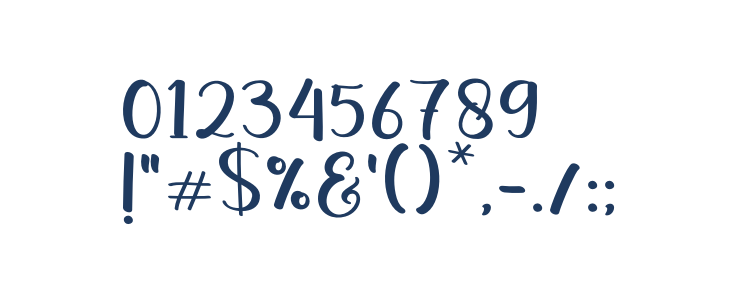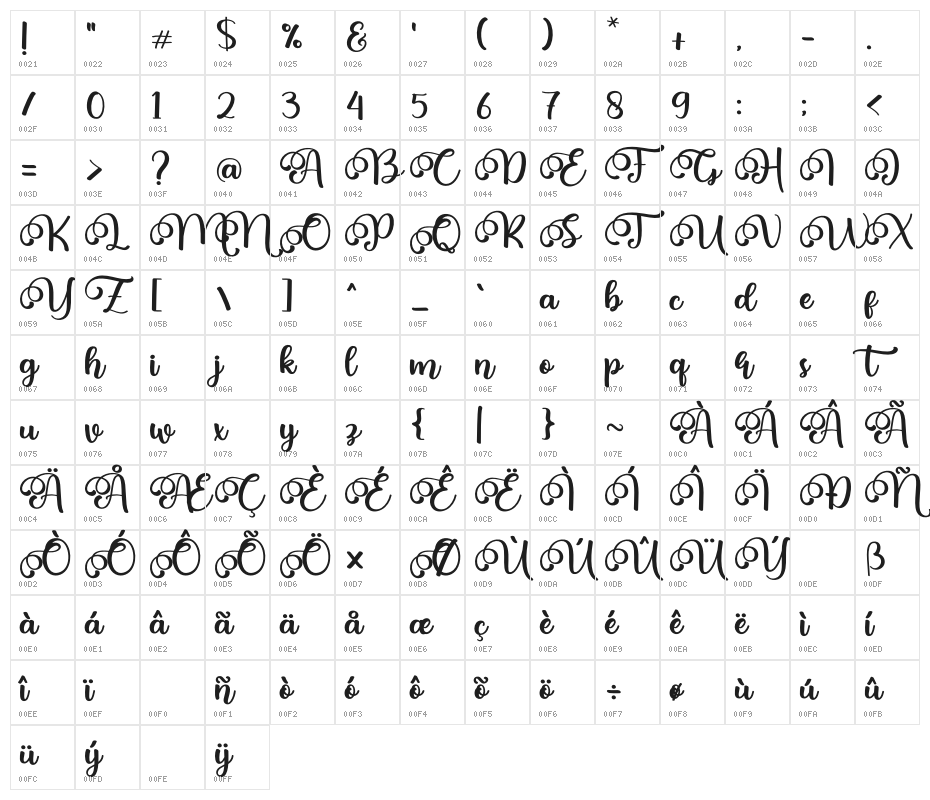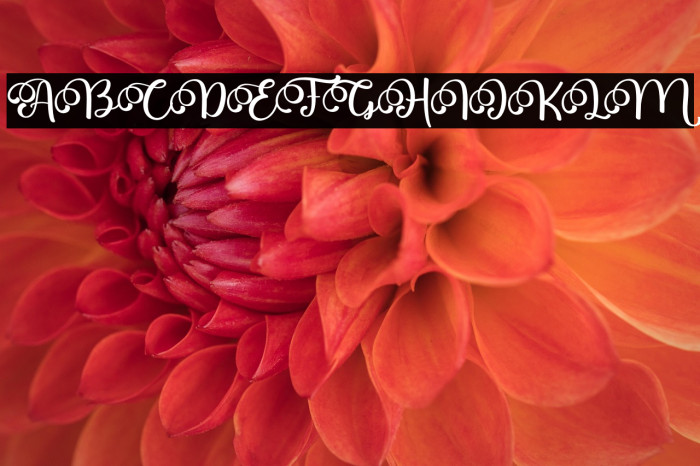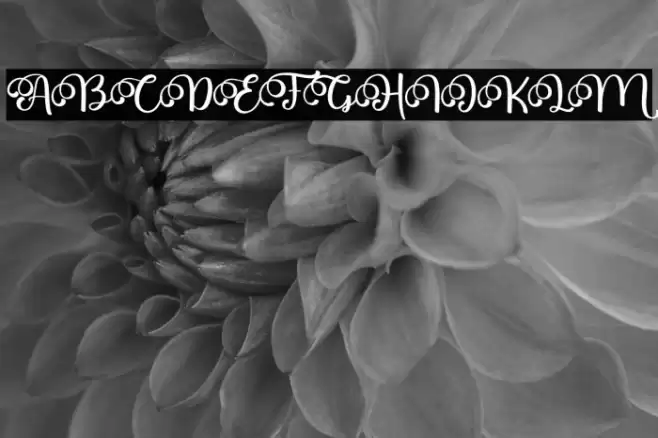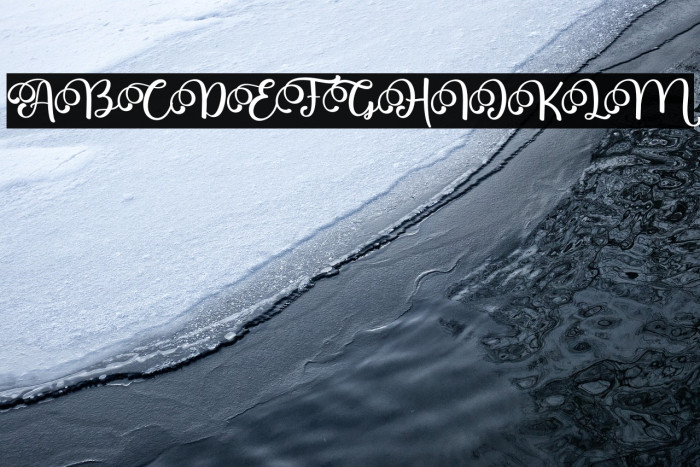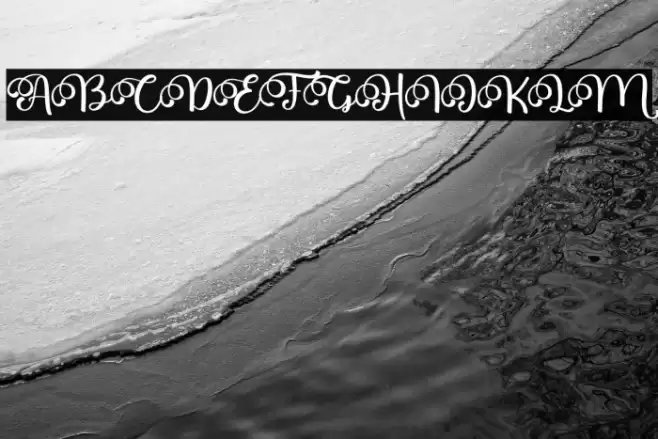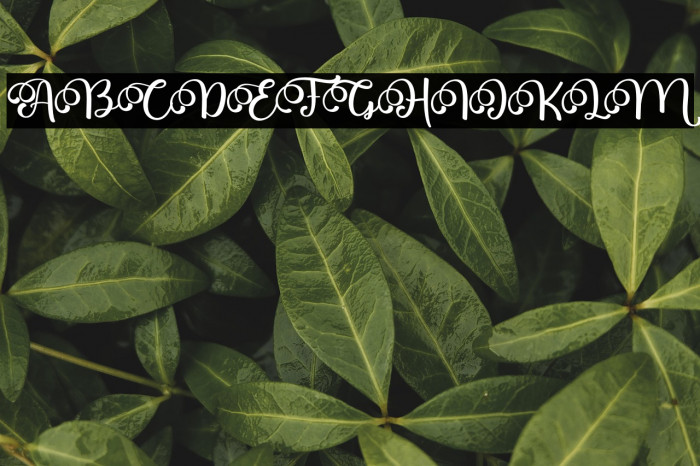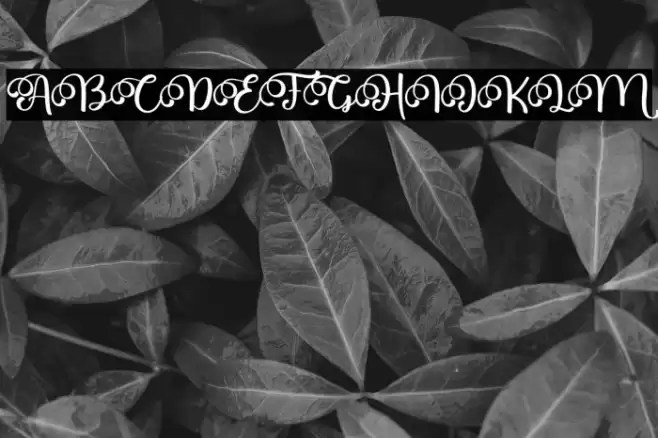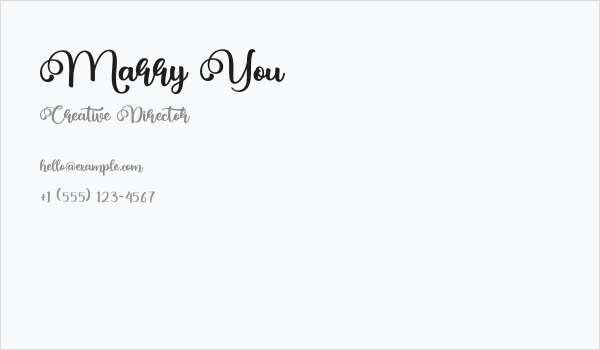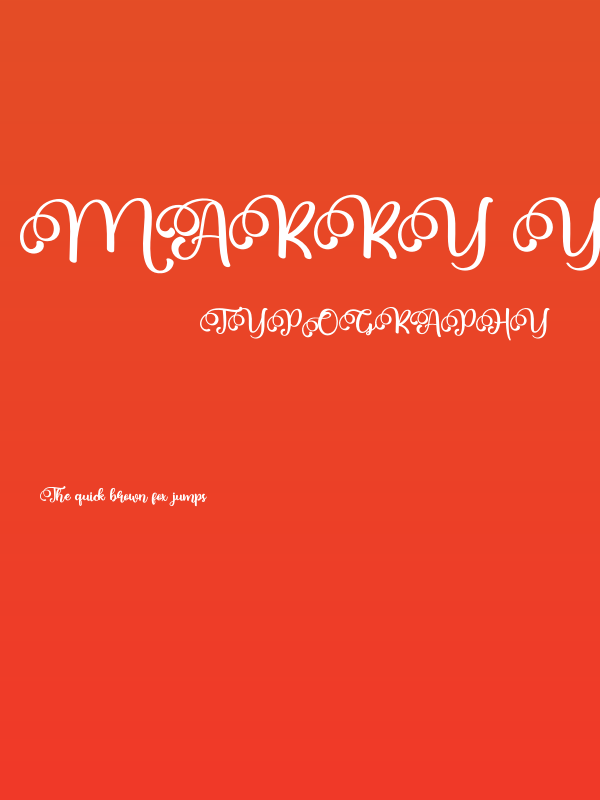
Marry You Font
Marry You Description
This font features a playful and elegant script style, characterized by its flowing, interconnected letters and decorative flourishes. The uppercase letters are particularly ornate, with loops and curls that add a whimsical touch. The lowercase letters maintain a smooth, cursive flow, making the text appear handwritten yet polished. The numerals and special characters are consistent with the overall style, offering a cohesive look. This font is ideal for projects that require a personal, artistic touch, such as invitations, greeting cards, or branding materials.
| Use Case | Invitations, Greeting cards, Branding |
| Proposed Projects | Ideal for wedding invitations, greeting cards, branding materials, and artistic projects. |